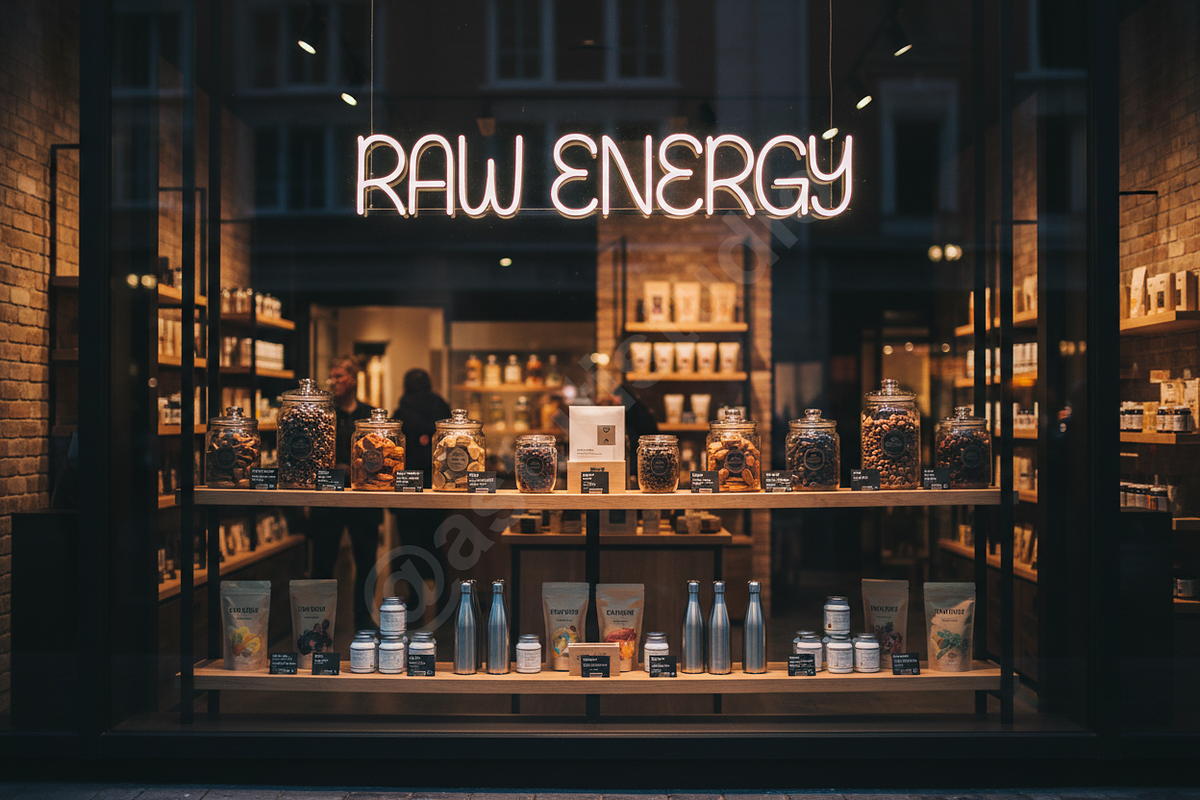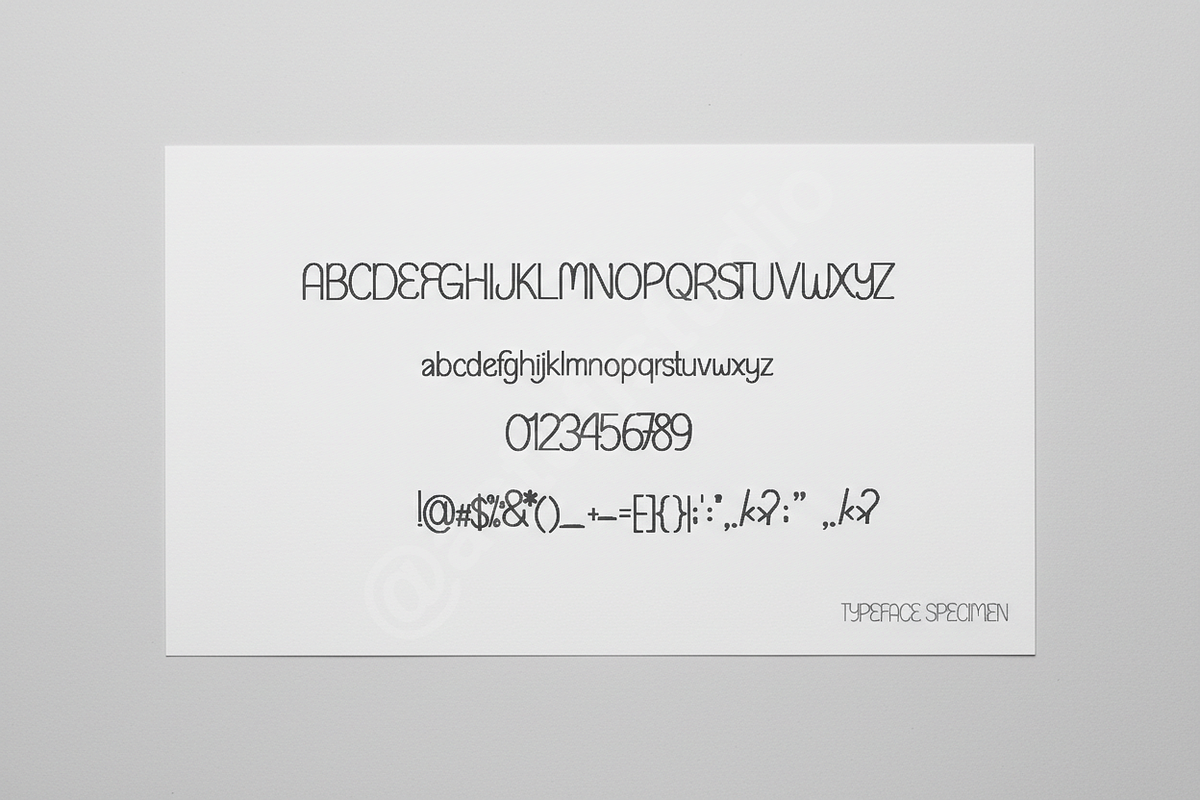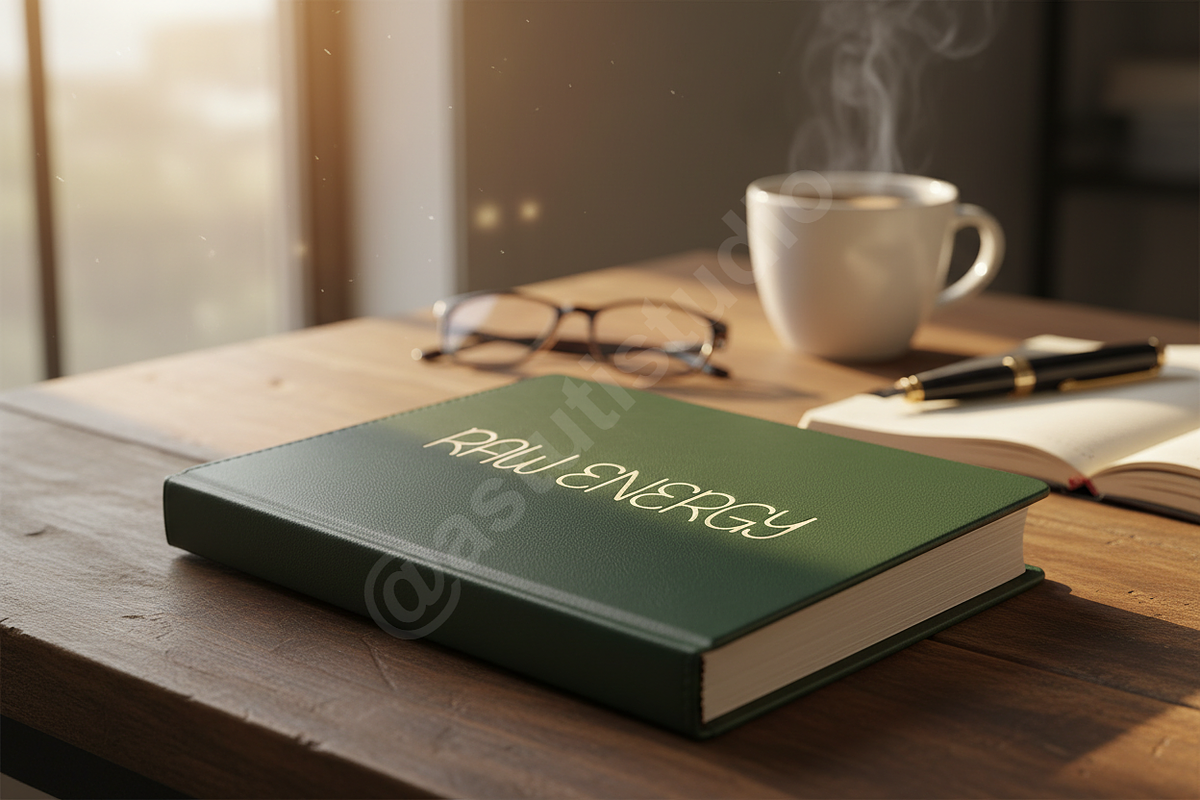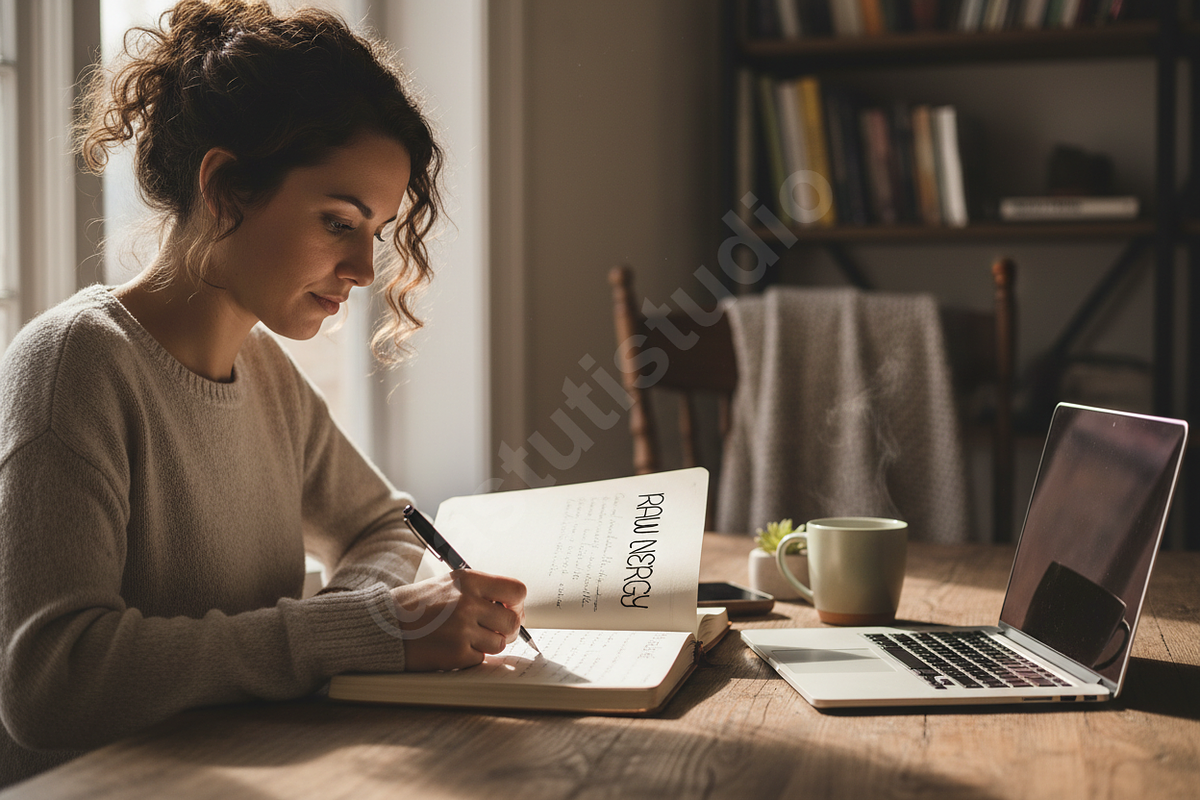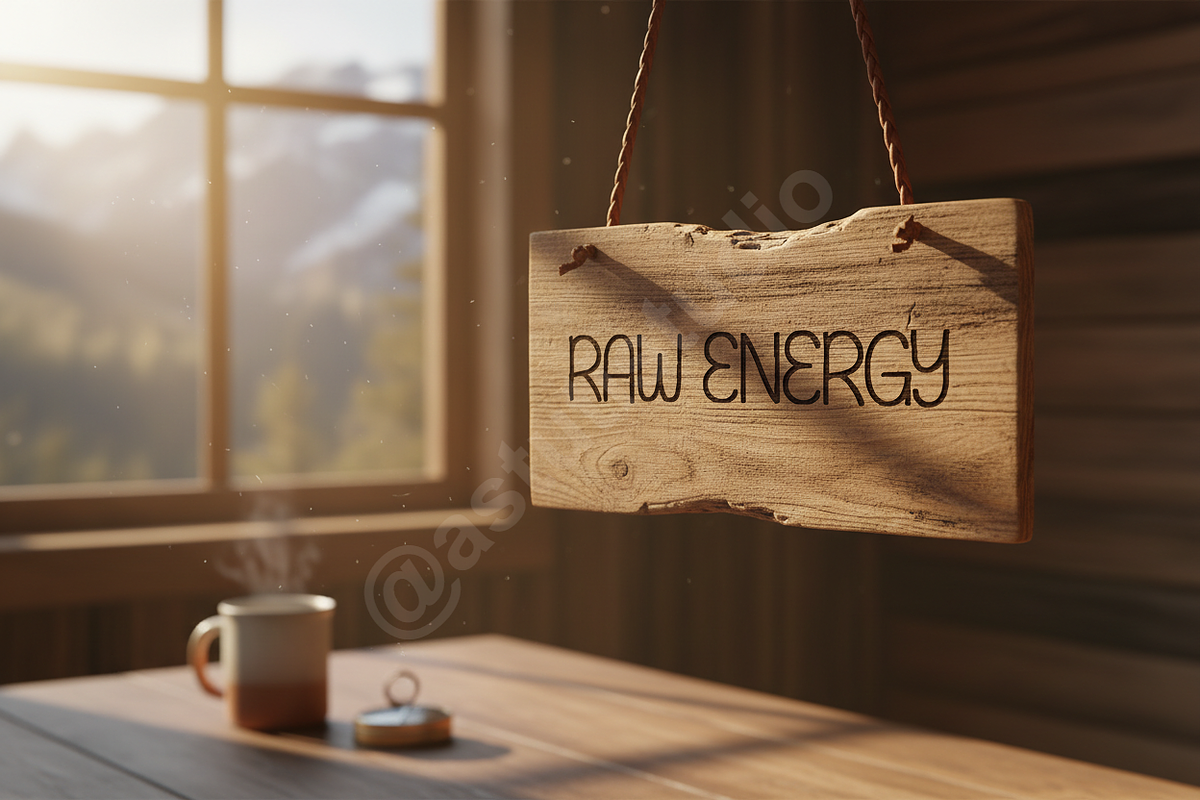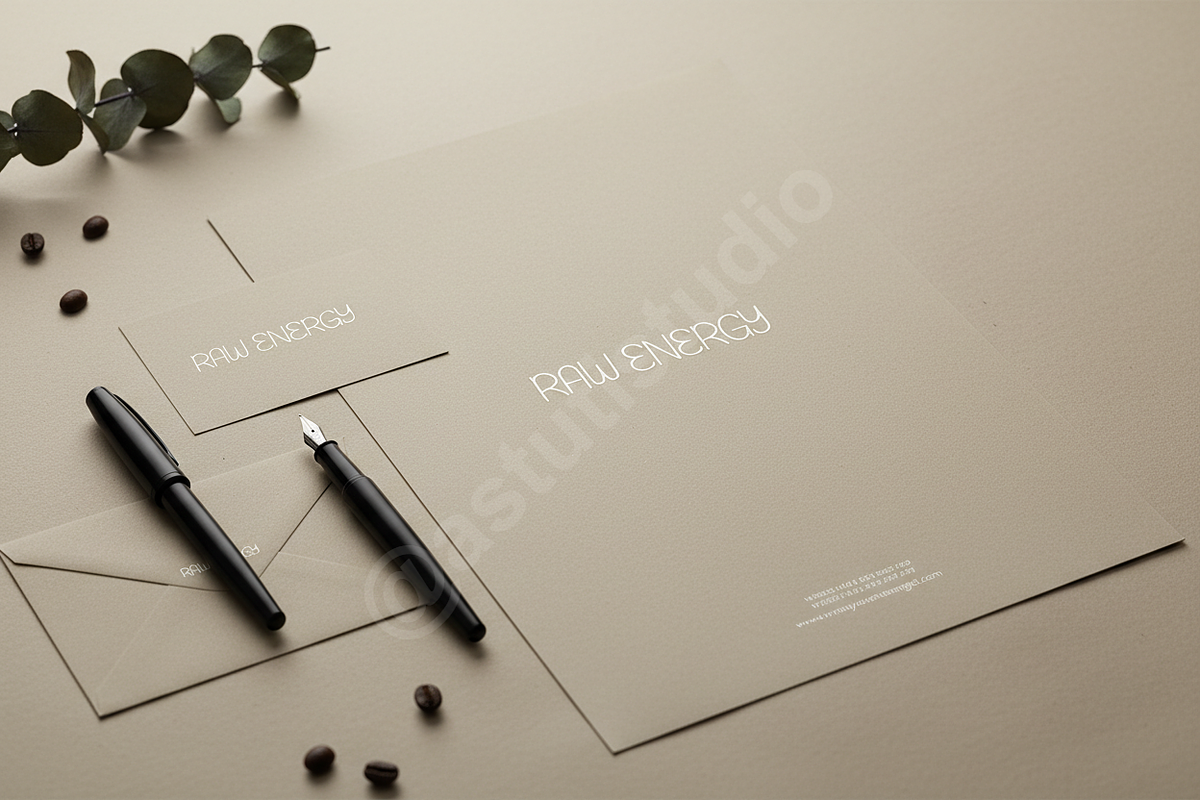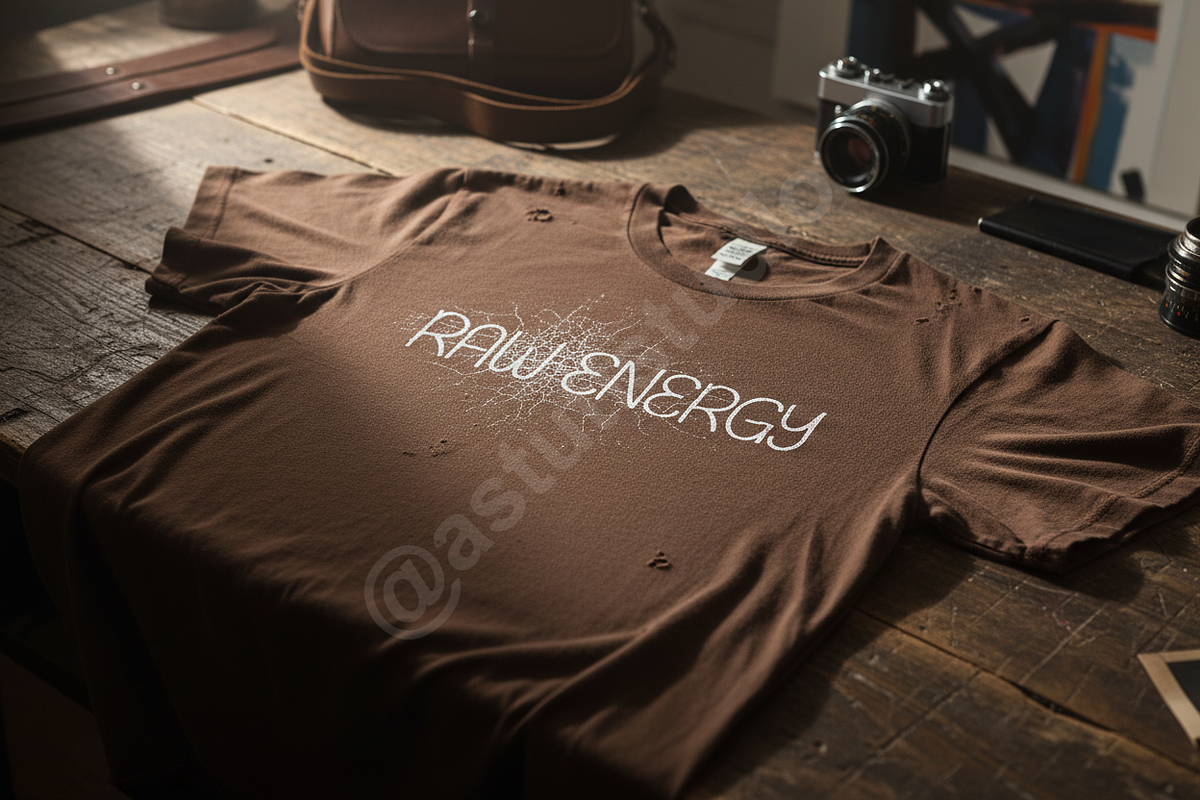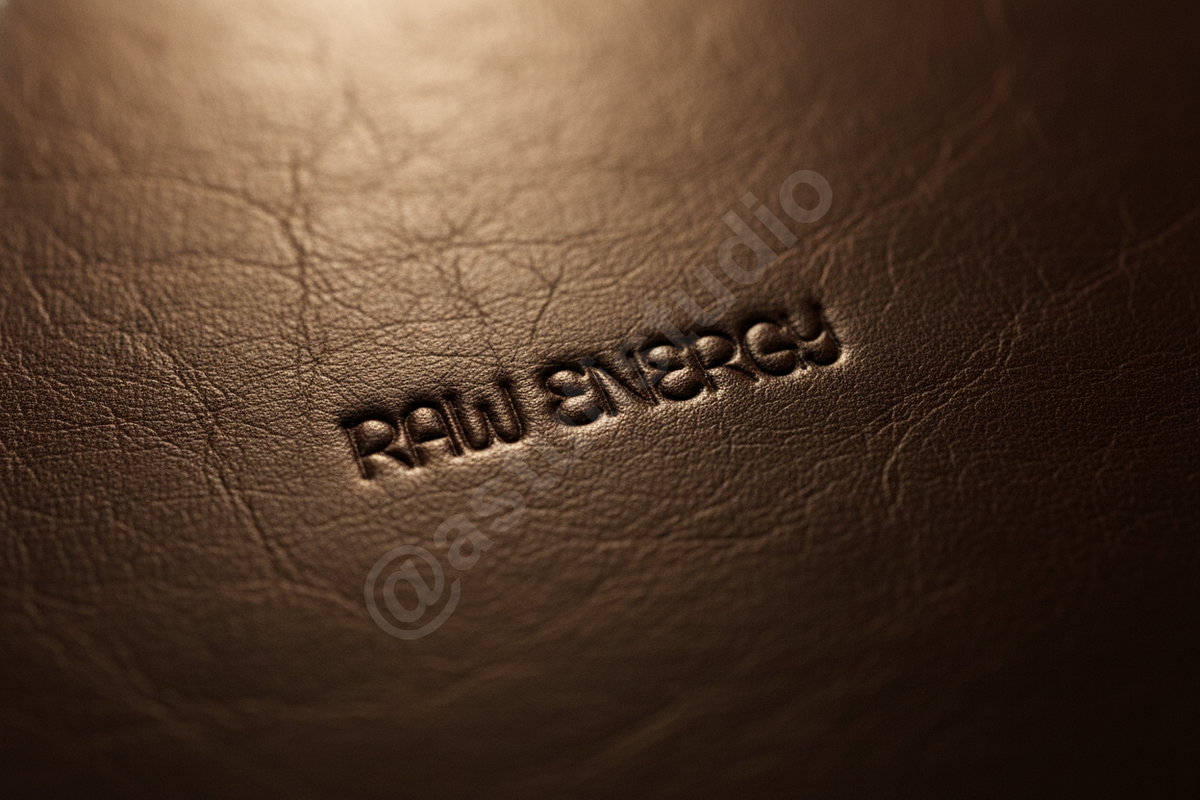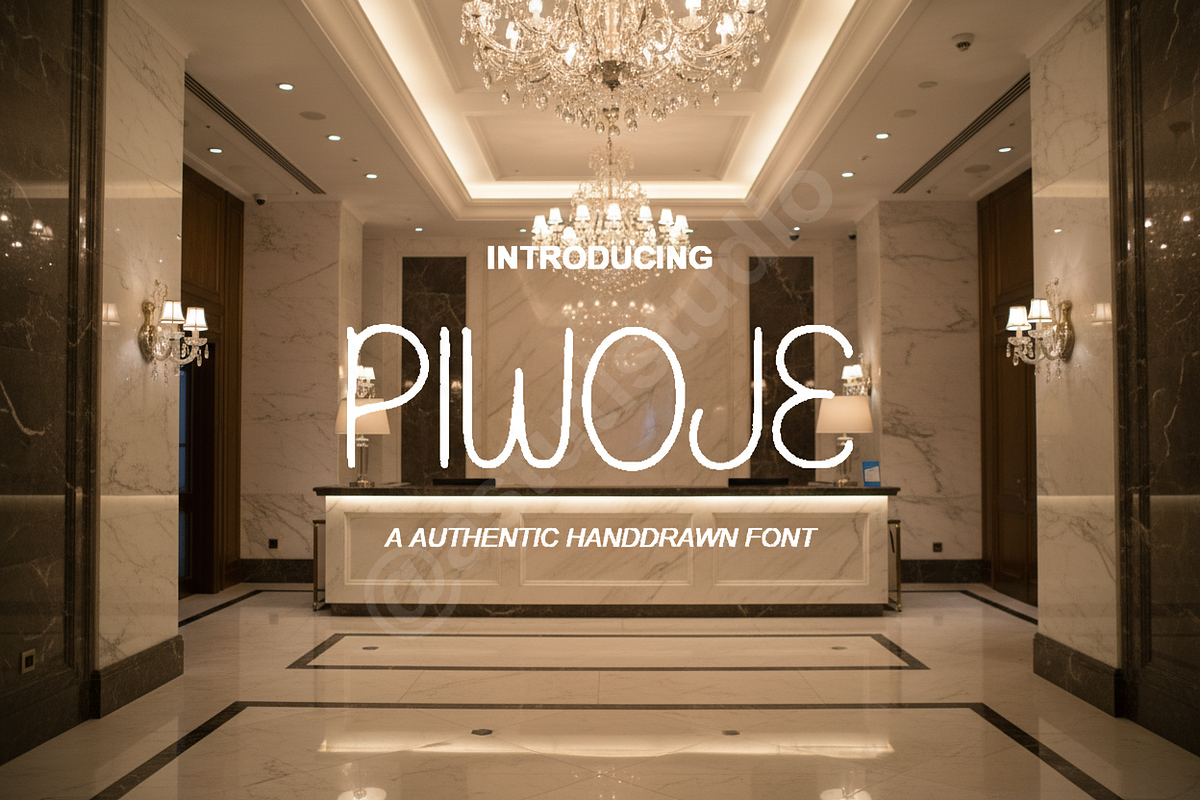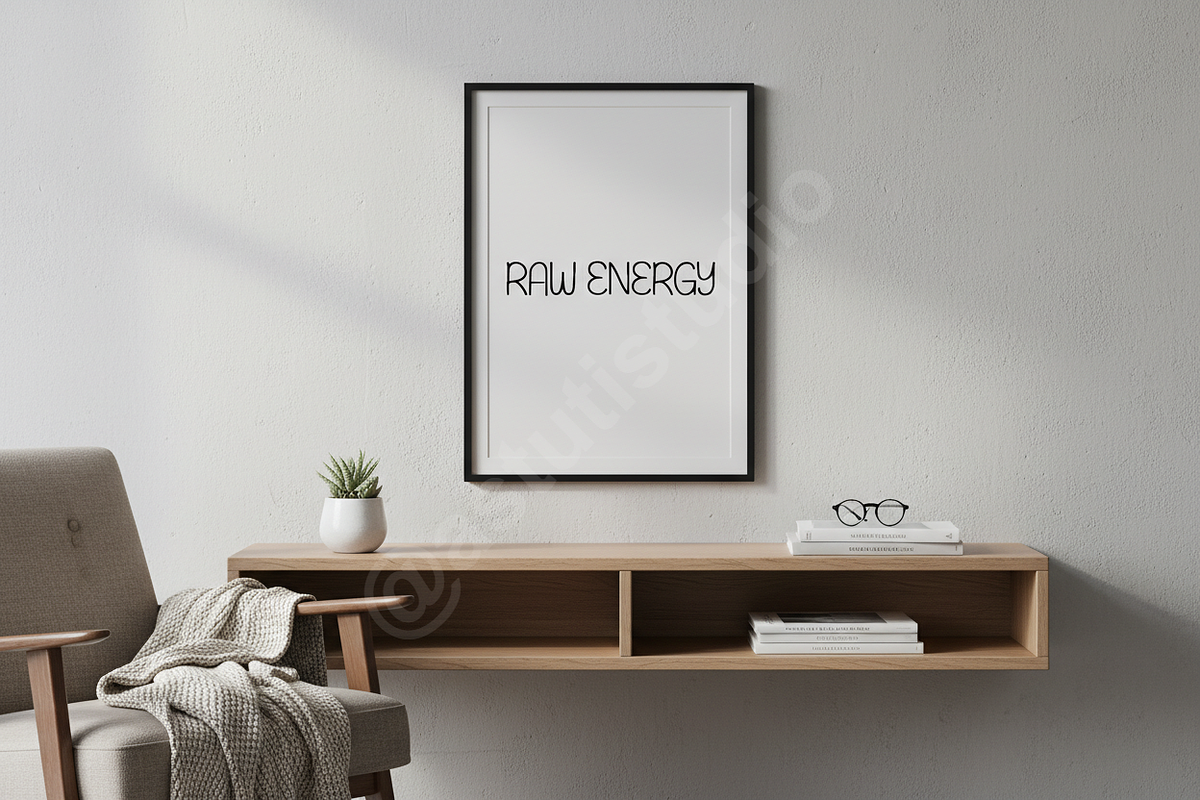
Piwoje - Modern Elegant Serif Typefa
INTRODUCTION
Piwoje is a sophisticated serif typeface meticulously crafted for premium visual identities. It strikes a perfect balance between timeless tradition and contemporary flair, making it an essential tool for designers seeking to convey elegance and authority. With its high-contrast strokes and refined silhouettes, Piwoje adds a layer of curated luxury to any project.
- Elegant high-contrast serif design
- Extensive set of specialized ligatures
- Stylistic alternates for custom typography
- Full multilingual character support
- Precise kerning for optimal legibility
PERFECT FOR
- Luxury Branding and Visual Identity
- High-end Editorial Layouts and Magazine Spreads
- Sophisticated Social Media Content
- Minimalist Product Packaging
- Wedding Stationery and Invitations